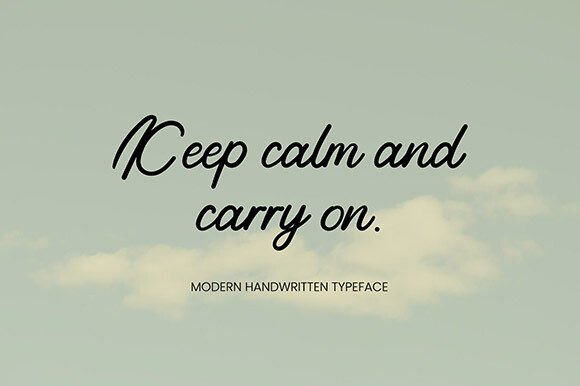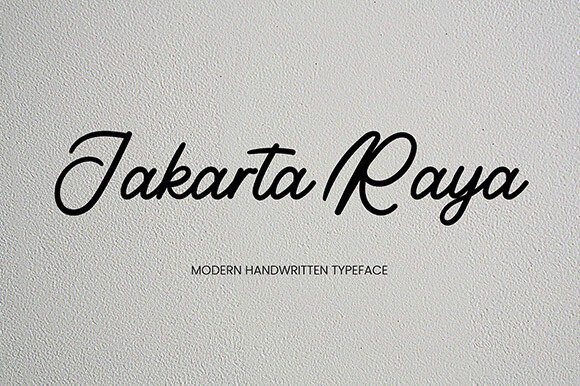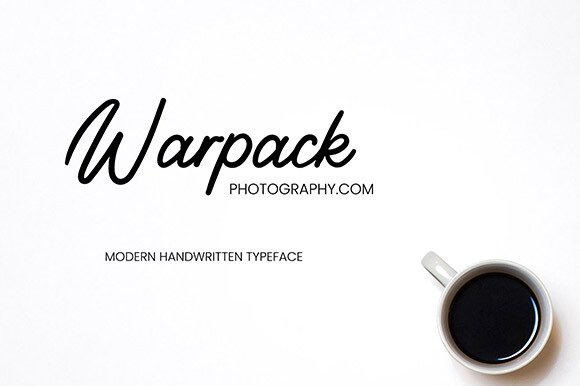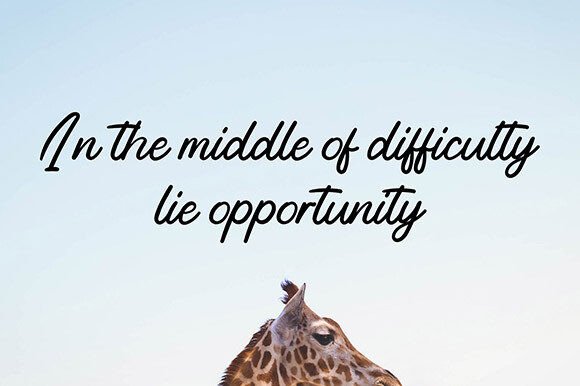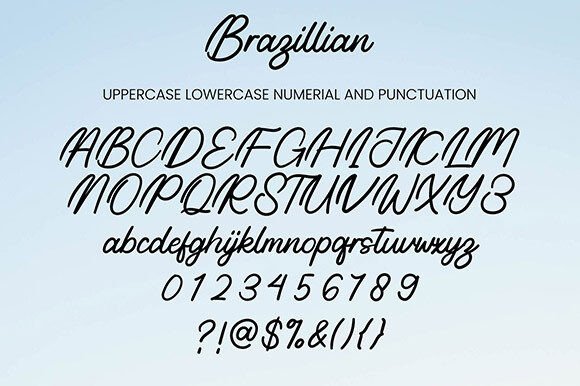
Brazillian Font: Adding a Touch of Romance to Your Designs
Brazillian font is a beautiful, enchanting handwritten script font that has captured the hearts of designers and crafters alike. With its versatile nature, this font can be used in a wide range of applications, from greeting cards to headlines, and is guaranteed to add a romantic feel to your next project.
What is Brazillian Font?
Brazillian font is a type of script font that is characterized by its flowing, cursive strokes and elegant letterforms. It is a handwritten font that exudes a sense of warmth, sophistication, and romance, making it perfect for designs that require a personal touch.
Features of Brazillian Font
- Handwritten style: Brazillian font is a handwritten font that has a unique, personal feel to it.
- Versatile: This font can be used in a variety of applications, from greeting cards to headlines, and even in digital media.
- Romantic feel: Brazillian font is guaranteed to add a romantic touch to your designs, making it perfect for wedding-related projects, Valentine’s Day cards, and more.
- Elegant letterforms: The font features elegant letterforms that are carefully crafted to create a sense of sophistication and refinement.
Uses of Brazillian Font
Brazillian font is a versatile font that can be used in a wide range of applications, including:
- Greeting cards: Add a personal touch to your greeting cards with Brazillian font.
- Headlines: Use Brazillian font to create eye-catching headlines for your blog posts, articles, or advertisements.
- Wedding-related projects: Brazillian font is perfect for wedding-related projects, such as wedding invitations, save-the-date cards, and more.
- Digital media: Use Brazillian font in your digital media, such as social media graphics, email newsletters, and more.
Tips for Using Brazillian Font
Here are some tips for using Brazillian font in your designs:
- Pair with a sans-serif font: Pair Brazillian font with a sans-serif font to create a beautiful contrast.
- Use in moderation: Use Brazillian font in moderation to avoid overwhelming your design.
| Font Name | Brazillian Font |
| Author | chatype studio |
Brazillian font is a beautiful, enchanting handwritten script font that is perfect for designers and crafters looking to add a romantic touch to their designs. With its versatile nature and elegant letterforms, this font is guaranteed to make your designs stand out. Whether you’re creating greeting cards, headlines, or digital media, Brazillian font is a great choice.
Overall, Brazillian font is a beautiful and versatile font that can add a touch of romance to your designs. With its elegant letterforms and flowing strokes, this font is perfect for designers and crafters looking to create beautiful and unique designs.